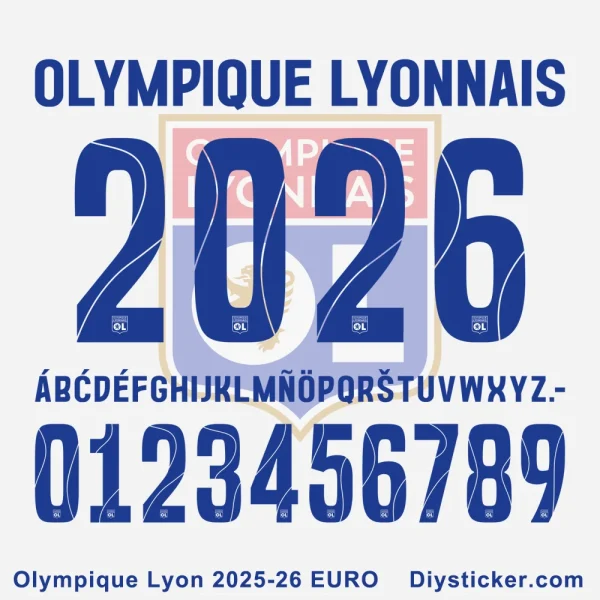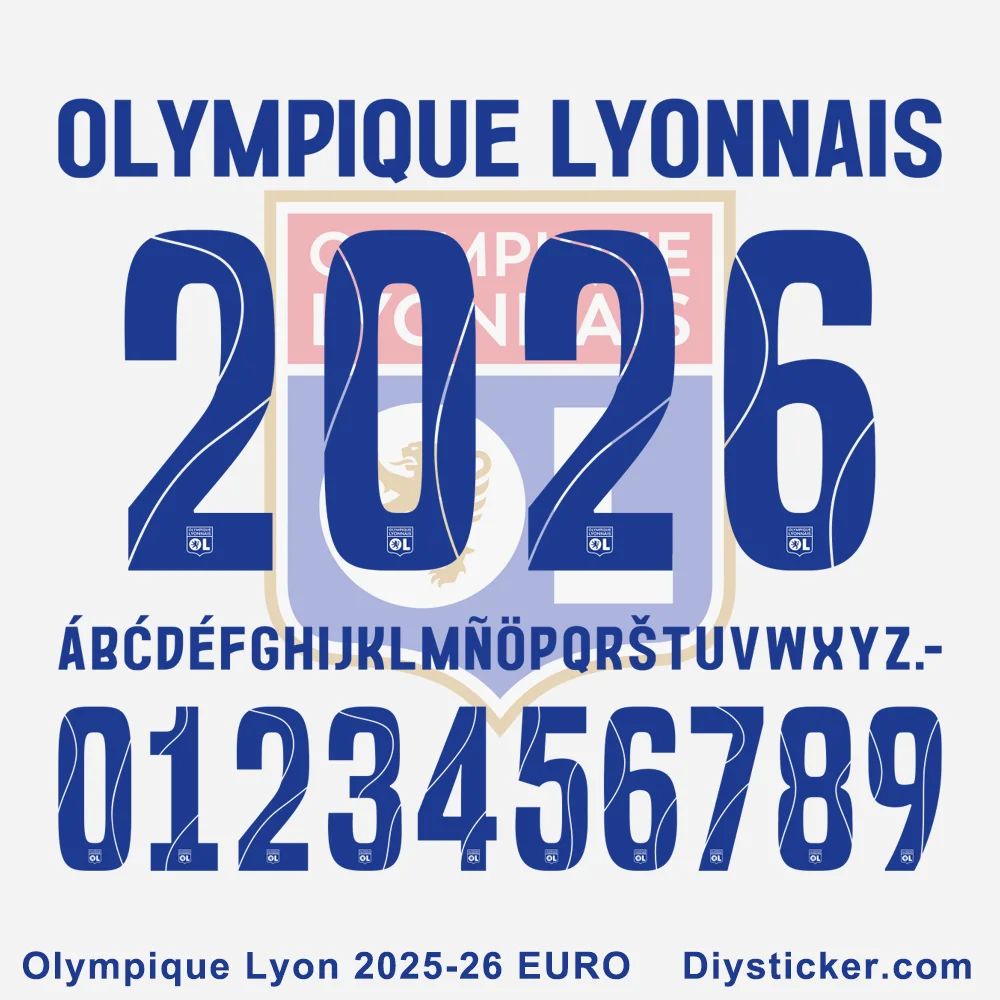
Support Les Gones in Europe with the official-style Olympique Lyonnais Font 2025-26 EURO! This professional typography pack is designed for fans and creators who want to produce authentic-looking OL merchandise and graphics for the European competitions.